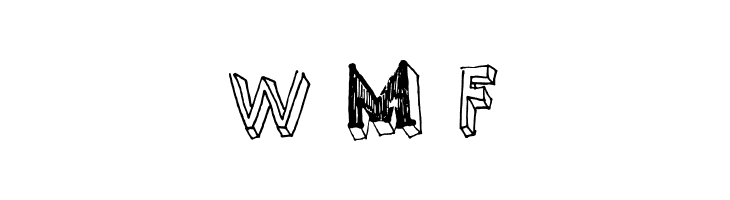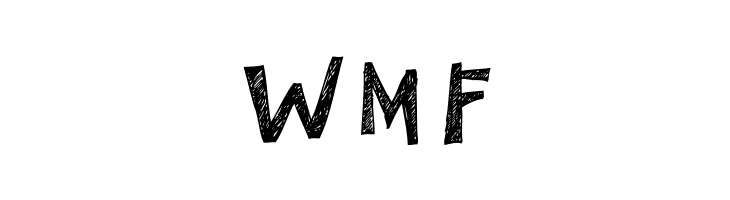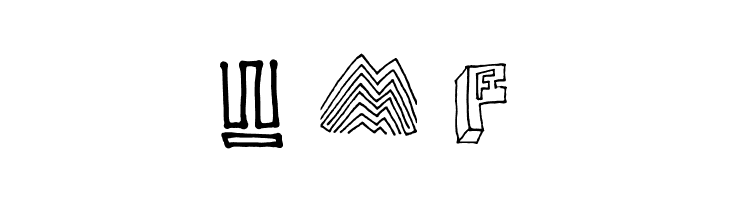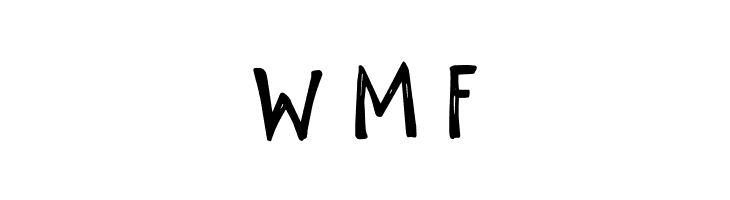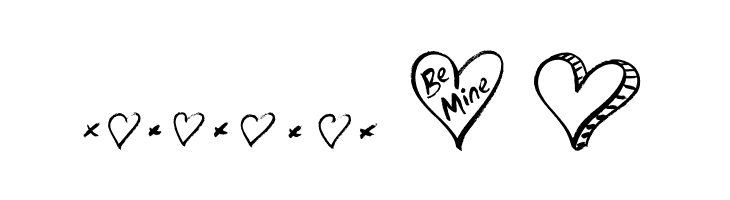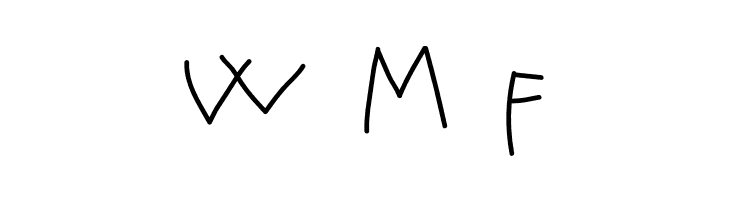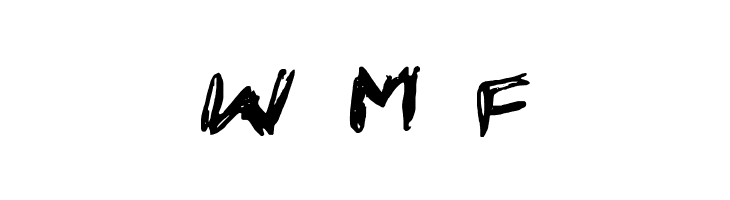
Hand-drawn floral doodle font with playful, decorative style.
A playful, hand-drawn collection of romantic speech bubbles and doodles.
Hand-drawn, space-themed decorative font with playful doodles.
A playful collection of festive Christmas-themed doodles in black and white.
Hand-drawn decorative font with cartoon characters and doodles.
A playful, sketchy font with a hand-drawn, doodle-like style.
A playful, decorative font with intricate patterns and doodles.
A playful, hand-drawn font with letters in doodled squares and pencil accents.
A playful, hand-drawn font with a textured, doodle-like appearance.
A playful, doodle-inspired font with unique, hand-drawn characters.
A playful set of doodle-style icons with a hand-drawn, whimsical feel.
A playful, hand-drawn font with a quirky, doodle-like style.
Hand-drawn, marker-style decorative doodle font.
Whimsical hand-drawn doodle extras with a playful, sketchy style.
A playful, hand-drawn font with a boxed, doodle-like appearance.
A bold, decorative font with intricate doodle patterns inside each letter.
A playful, wavy outline font with a hand-drawn, doodle-like appearance.
Whimsical doodle font with playful elements.
Hand-drawn decorative doodle icons and borders with a whimsical, playful style.
Hand-drawn Christmas doodle icon set.
A playful, hand-drawn font with a casual, doodle-like style.
A playful, hand-drawn font with romantic doodles and heart motifs.
Hand-drawn Halloween doodle font with cute, playful icons.
A playful, hand-drawn doodle font with charming icons and a casual style.
Hand-drawn doodle icon set with a casual, whimsical style.
Hand-drawn, whimsical doodle symbol font.
A whimsical, hand-drawn font with playful doodles and irregular strokes.
Hand-drawn doodle and graffiti-inspired decorative icon font.
Hand-drawn Christmas doodle icon set.
A bold, hand-drawn font with a textured, doodle-like pattern.
A playful, school-themed handwritten font with doodle-like illustrations.
A playful, hand-drawn font with intricate patterns and doodles.
A playful, hand-drawn font with a doodle-like, textured style.